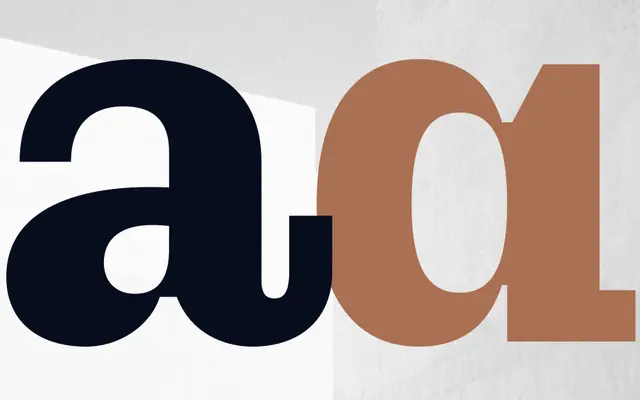
Stakkat specimen from Studio Rene Bieder
A six-weight sans-serif with matching italics from Studio René Bieder, offering a range of OpenType alternates including single-storey 'a' and 'g' variants.
Twelve styles run from Light to ExtraBold, each paired with an italic, giving solid weight coverage for both text and display work. OpenType features include small capitals, oldstyle figures, fractions, tabular figures and case-sensitive forms, alongside character alternates for 'a', 'g', 'y', arrows and an alternate ampersand in some styles. The feature set suggests a family designed with editorial and branding versatility in mind.
The page shows a clean, upright sans-serif with alternate single-storey 'a' and 'g' forms, suggesting a humanist or neo-grotesque construction typical of contemporary Swiss-influenced design.